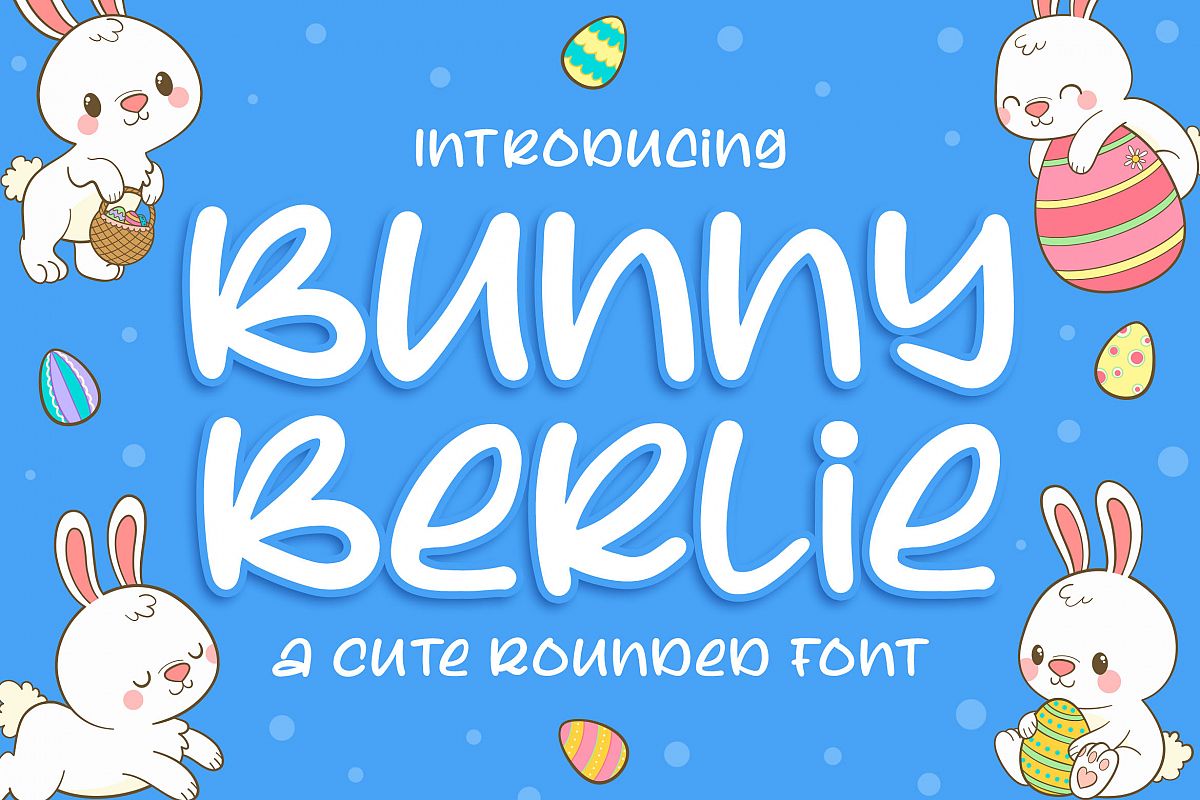
Bunny Berlie - a Cute Rounded Font
Introducing of our new product the name is Bunny Berlie a Cute Rounded Font. Bunny Berlie  inspired by Comic Style this font is a fun theme very good for kids, comic, food logo, food menu, wedding invitation, logotype and etc